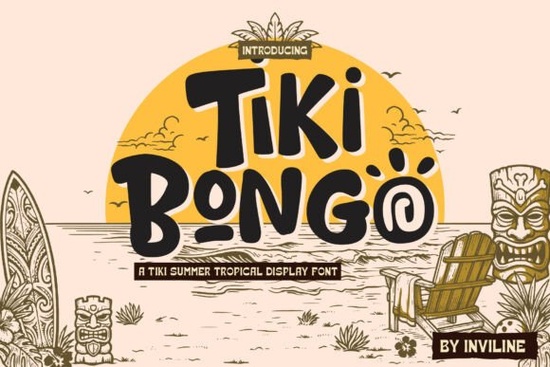
The Tiki Bongo Font is a standout choice for anyone looking to add a tropical flair to their designs. With its lively and organic style, this font brings the energy of summer fiestas and beachfront vibes to any project. Whether you're working on a food package, event poster, or unique merchandise, Tiki Bongo adds a handcrafted touch that sets your work apart. Its bold contours and vibrant personality make it ideal for headlines and brand expressions that demand attention.
Designers and creators who want to infuse their work with a sense of adventure will find Tiki Bongo to be an excellent fit. The font’s unique character reflects the spirit of island life, making it perfect for projects that aim to evoke a warm, exotic atmosphere. It's especially useful for those in the creative industry who are always looking for fresh and original ways to express their ideas.
What Makes Tiki Bongo Stand Out?
Tiki Bongo isn’t just another decorative font it’s a tool that can elevate your design work with its distinct visual appeal. Its organic shapes and playful style make it easy to use while still maintaining a strong presence. This font is designed to be versatile, fitting well in both digital and print formats. Its readability remains consistent even at larger sizes, which is essential for headlines and promotional materials.
One of the key strengths of Tiki Bongo is its ability to convey a sense of fun and energy without being overwhelming. It works well in a variety of contexts, from casual branding to more formal designs that still need a touch of personality. The font’s balance between boldness and clarity ensures that it doesn’t distract from the message but instead enhances it.
Who Can Benefit from Using Tiki Bongo?
Print-on-demand sellers, small businesses, and creative hobbyists will find Tiki Bongo to be a valuable addition to their design toolkit. Its tropical vibe makes it particularly suitable for products related to travel, food, or lifestyle themes. For example, a boutique that sells beach-themed accessories could use this font to create eye-catching labels or packaging that stands out on store shelves.
Crafters and designers who work with handmade items or custom prints can also benefit from using Tiki Bongo. It adds a unique and personal touch that resonates with customers looking for something different. Whether you’re creating social media graphics, greeting cards, or website headers, this font can help you achieve a cohesive and appealing look.
How to Use Tiki Bongo Effectively
To get the most out of Tiki Bongo, consider using it for headings, logos, or short phrases where impact is important. It works best when used sparingly, as its bold nature can be overpowering if overused. Pairing it with simpler fonts for body text can help maintain a balanced and professional appearance.
Whether you're a seasoned designer or just starting out, Tiki Bongo offers a fresh and engaging way to express your creativity. Its combination of style and functionality makes it a reliable choice for a wide range of projects.
As you continue to explore new fonts and design techniques, keep in mind that the right choice can significantly impact the success of your project. Tiki Bongo is one such font that can bring a unique and memorable touch to your work.